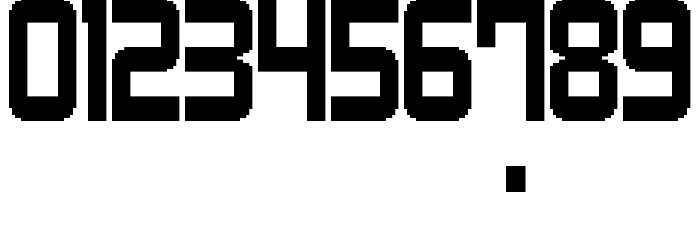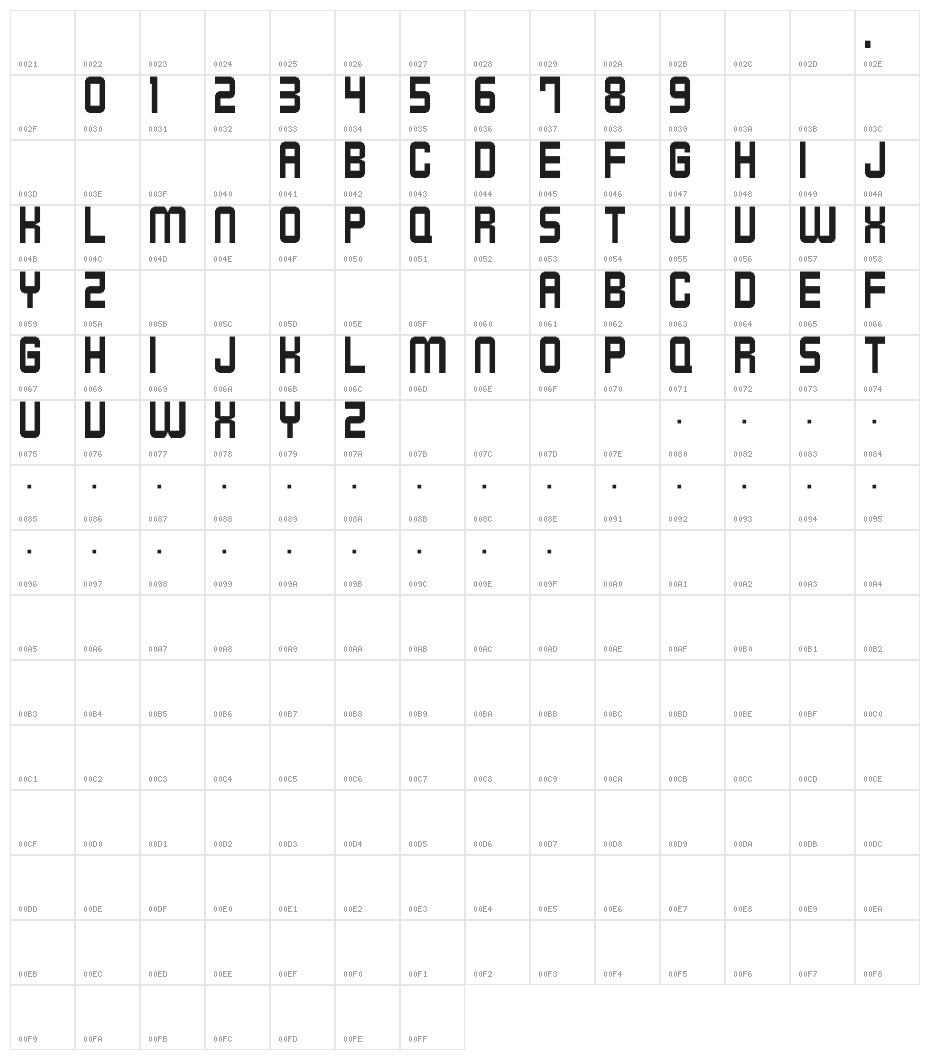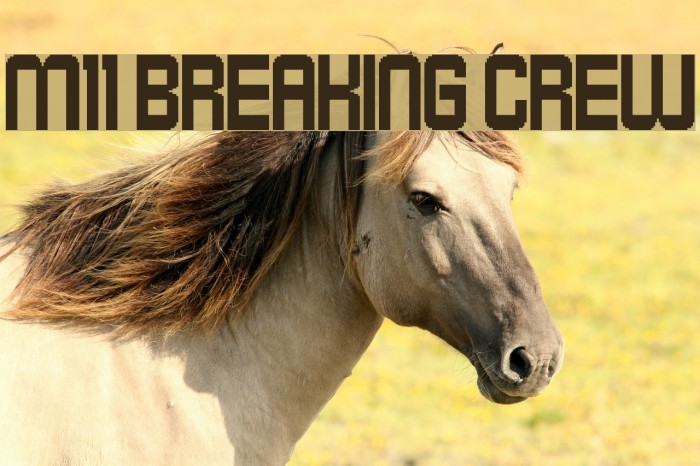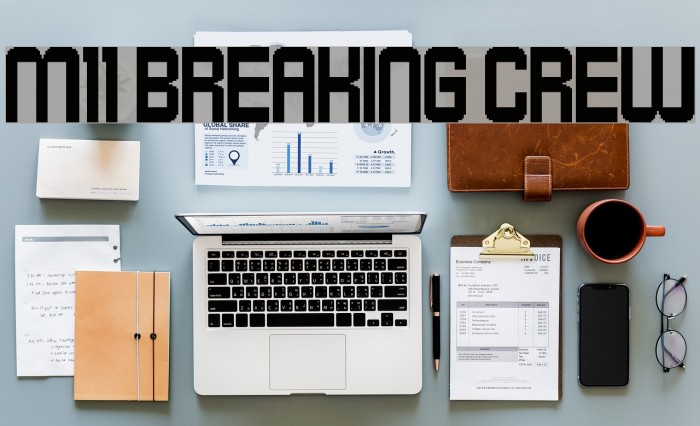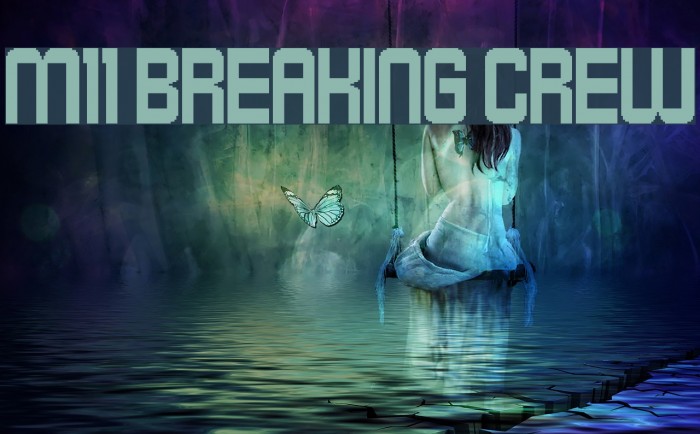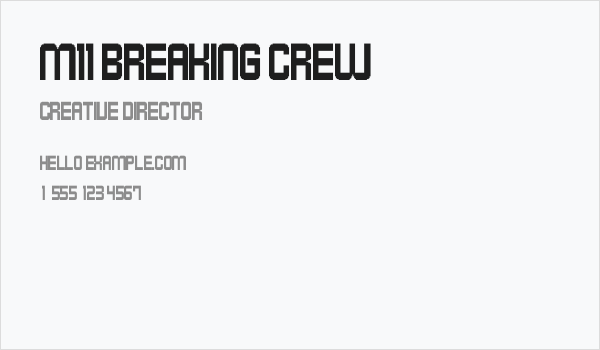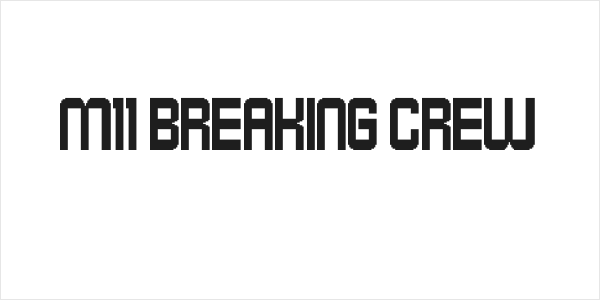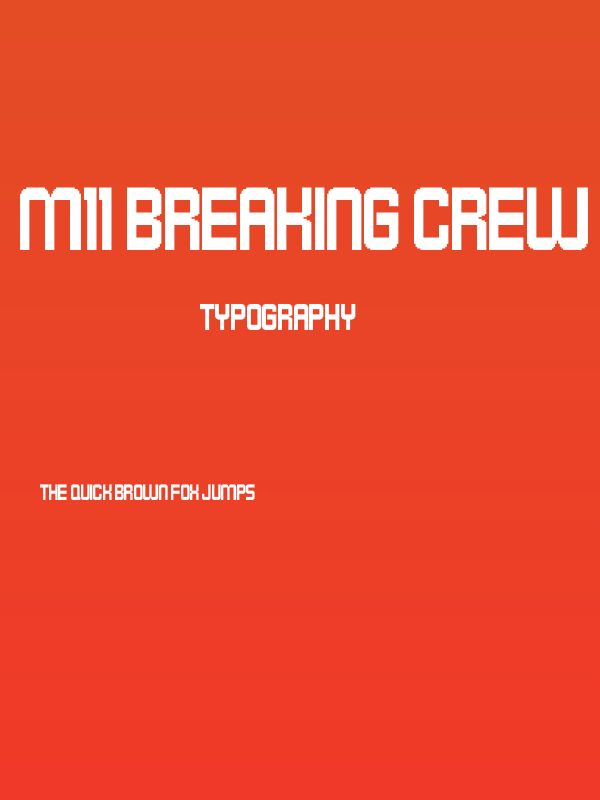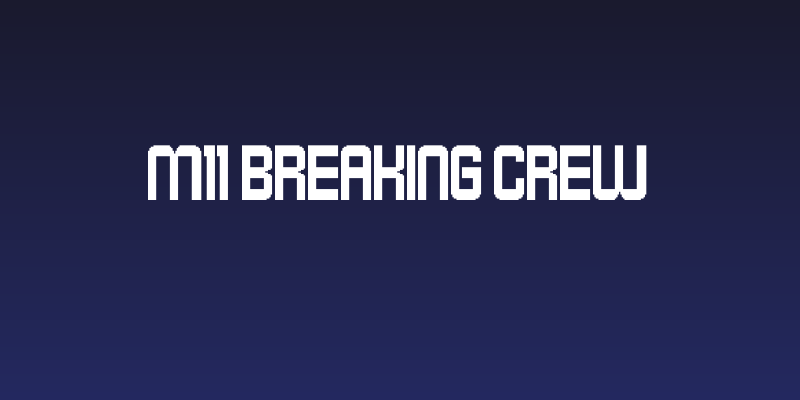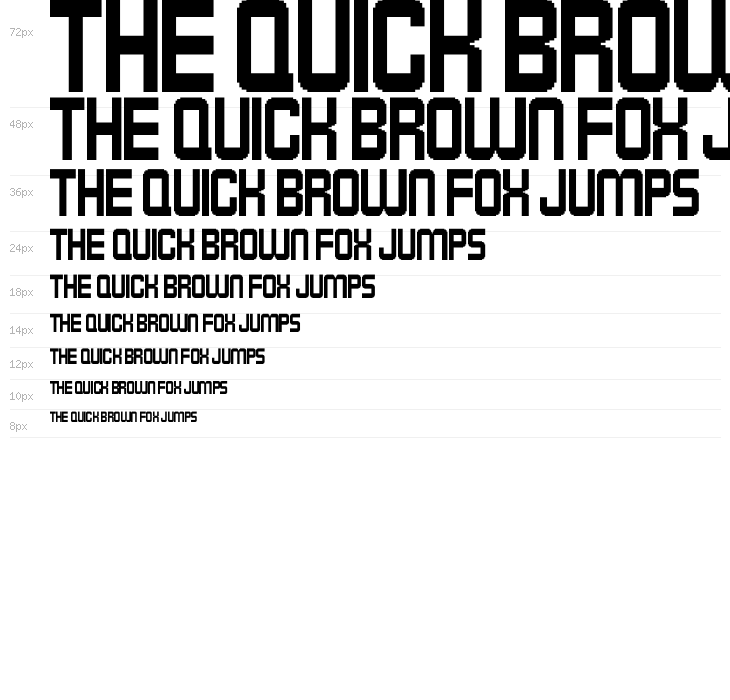
M11_BREAKING CREW Font
M11_BREAKING CREW Description
This font features a bold, geometric design with a strong, block-like appearance. The characters are uniformly structured, creating a sense of stability and modernity. The uppercase and lowercase letters share a similar height, enhancing the uniformity. The numbers are equally bold, maintaining the overall aesthetic. The font's design is clean and straightforward, with minimal curves, emphasizing straight lines and right angles. This gives it a futuristic and digital feel, suitable for tech-related projects. The spacing between characters is tight, contributing to its compact and cohesive look.
| Use Case | Logos, Headlines, Digital interfaces |
| Proposed Projects | Ideal for tech branding, digital interfaces, video game graphics, and modern posters. |